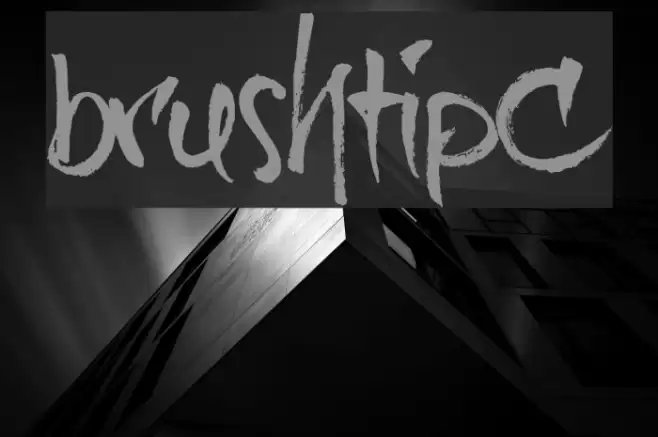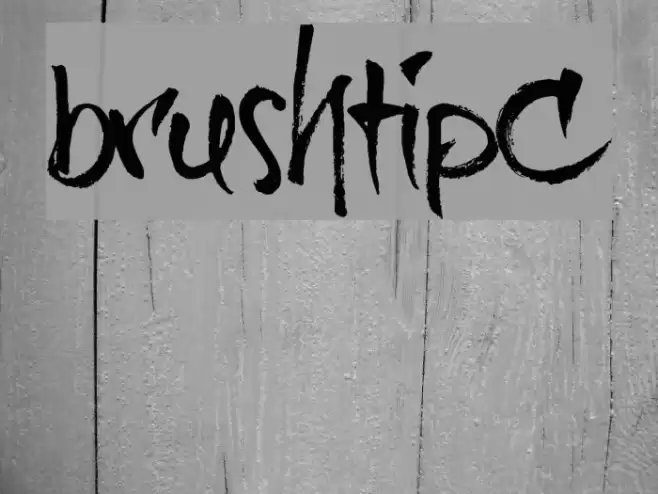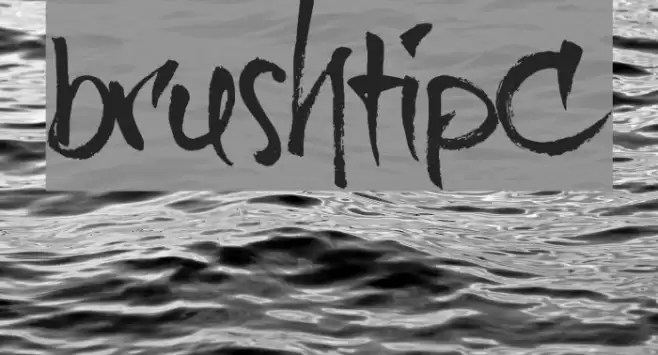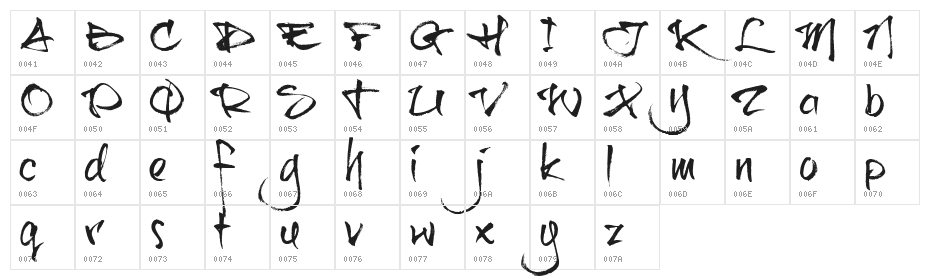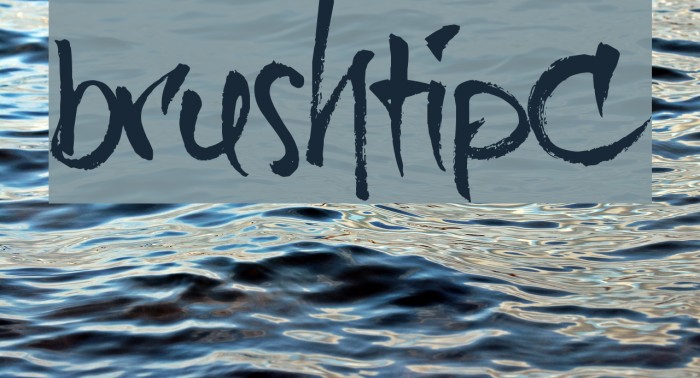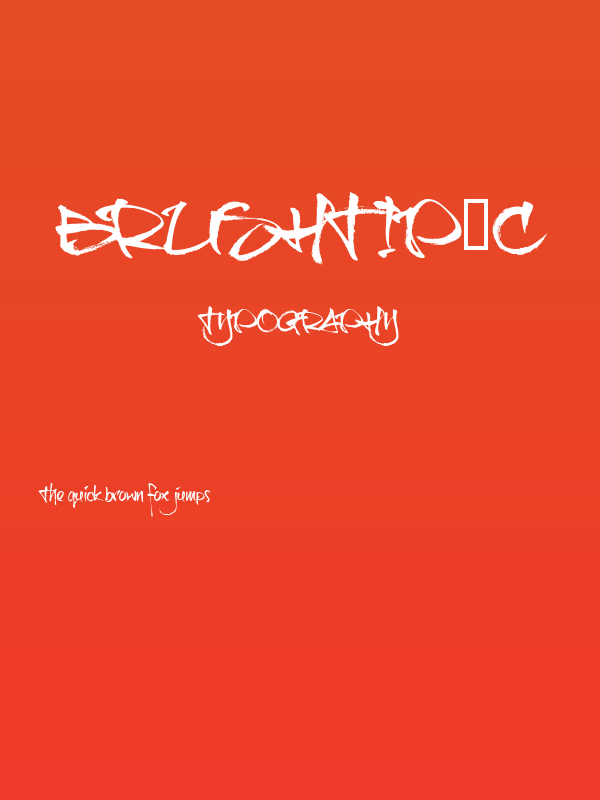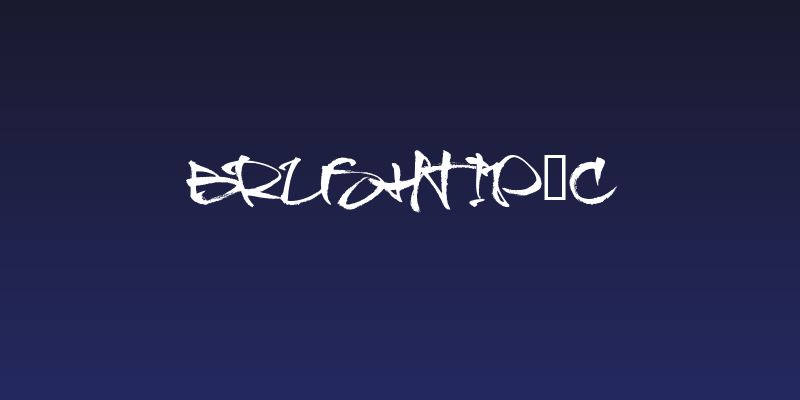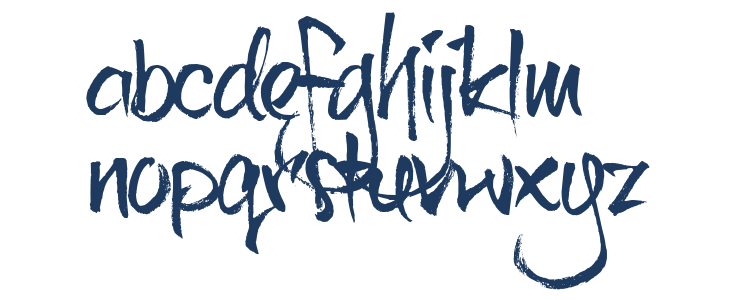
brushtip-C Font
brushtip-C Description
This font features a dynamic and expressive brush style, characterized by its bold and energetic strokes. The letters have a hand-painted appearance, with varying thicknesses that create a sense of movement and fluidity. The uppercase and lowercase letters maintain a consistent style, with sharp angles and sweeping curves that give the font a lively and artistic feel. The absence of numbers and special characters suggests a focus on artistic expression rather than practicality. This font is ideal for creative projects that require a bold and impactful visual statement.
A bold, expressive brush-style font with dynamic strokes from Uncategorized fonts.
- Proposed Projects: Ideal for artistic posters, album covers, branding for creative industries, and any project needing a bold, artistic touch.